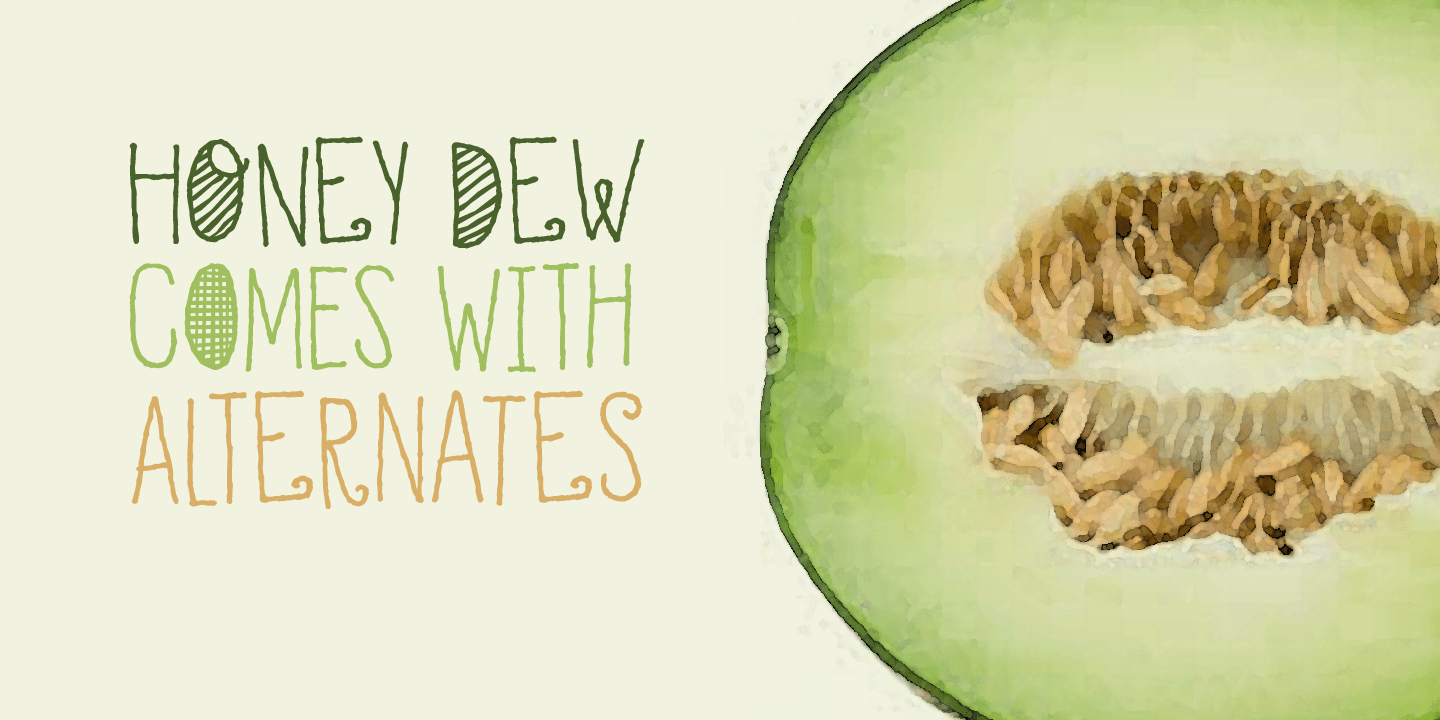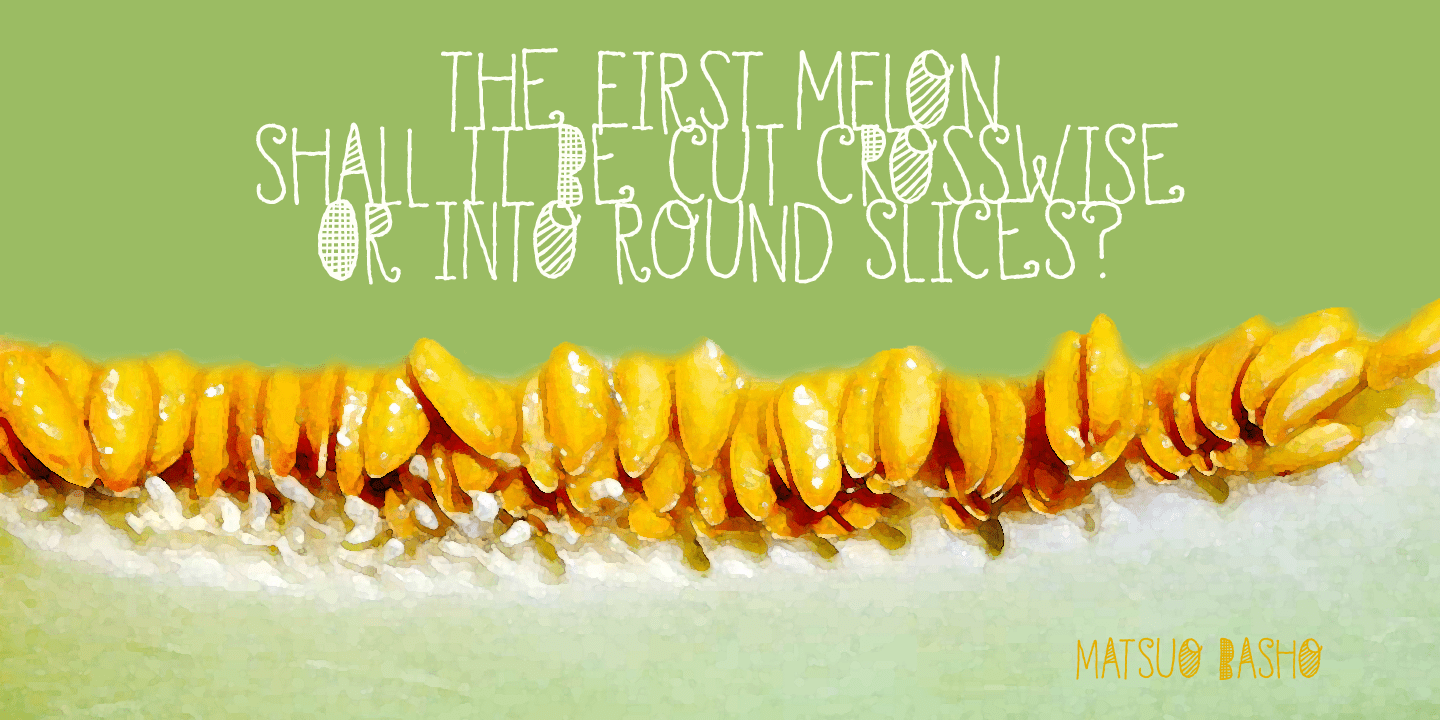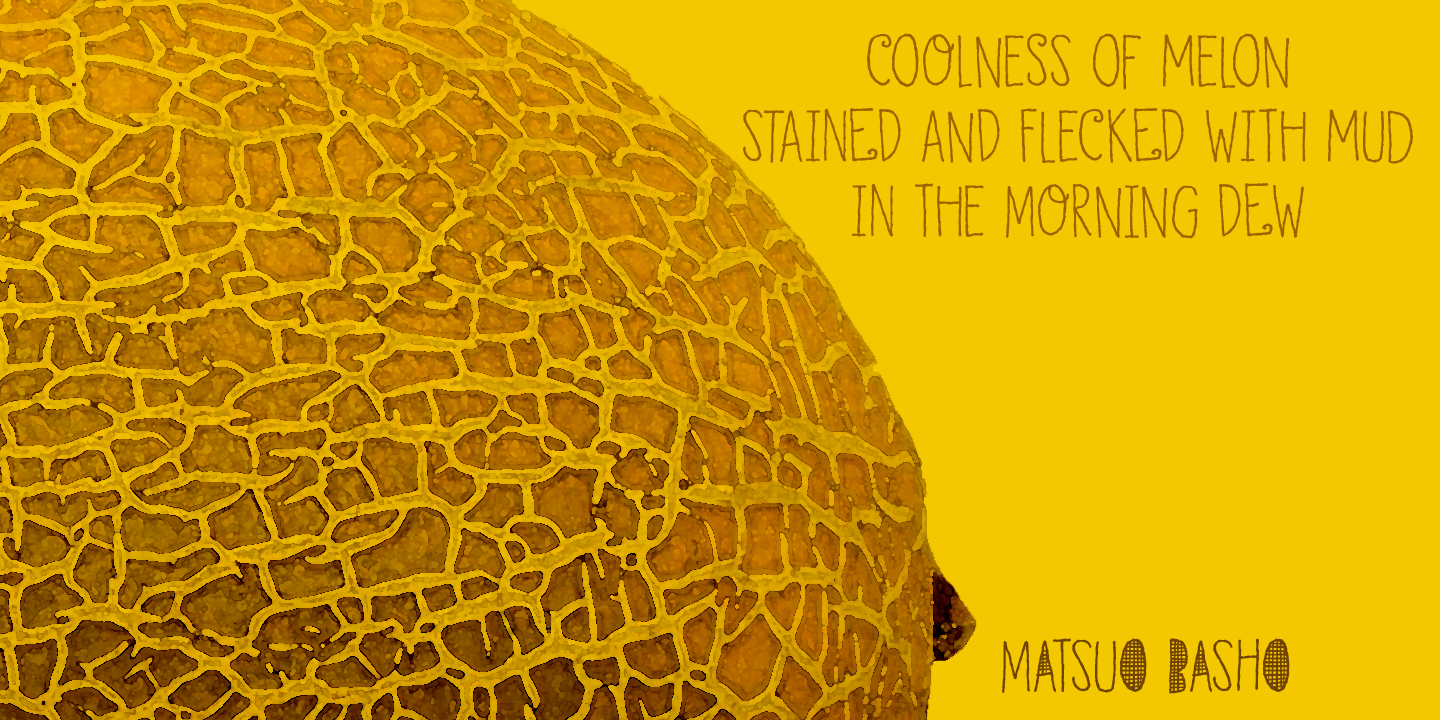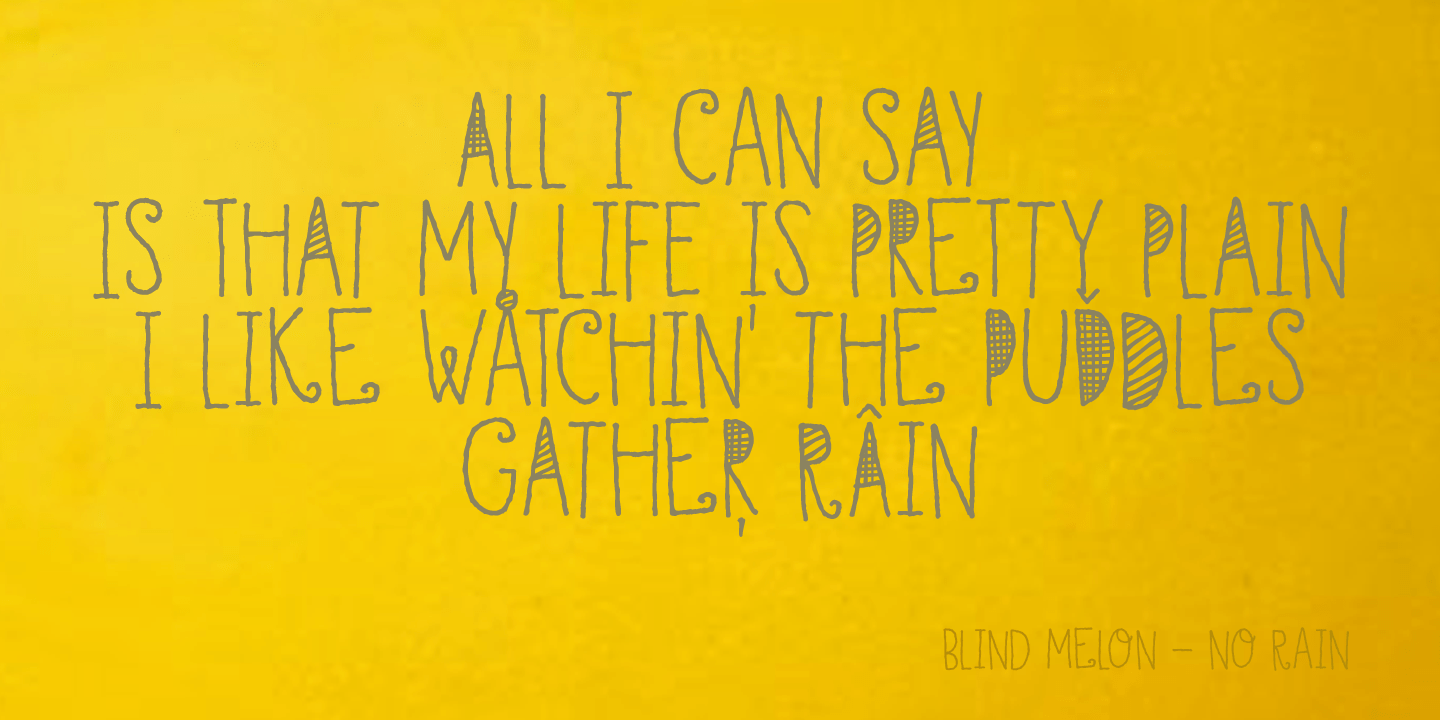
Honey Dew
Font Family by Hanoded
Right now it is melon time: the supermarkets are full of them: Galia, Honey Dew, Piel de Sapo? Back in Casa Hanoded we're quite happy with the abundance of melons! So, when I created this cute little font, naming it was easy. Honey Dew is a shaky all caps font with different upper and lower case glyphs. I created alternate letters for both upper and lower case closed glyphs (like a, b, d, o, etc.) - including their accented brethren (aacute, abreve, acircumflex), etc. There is an alternate & and @, plus the